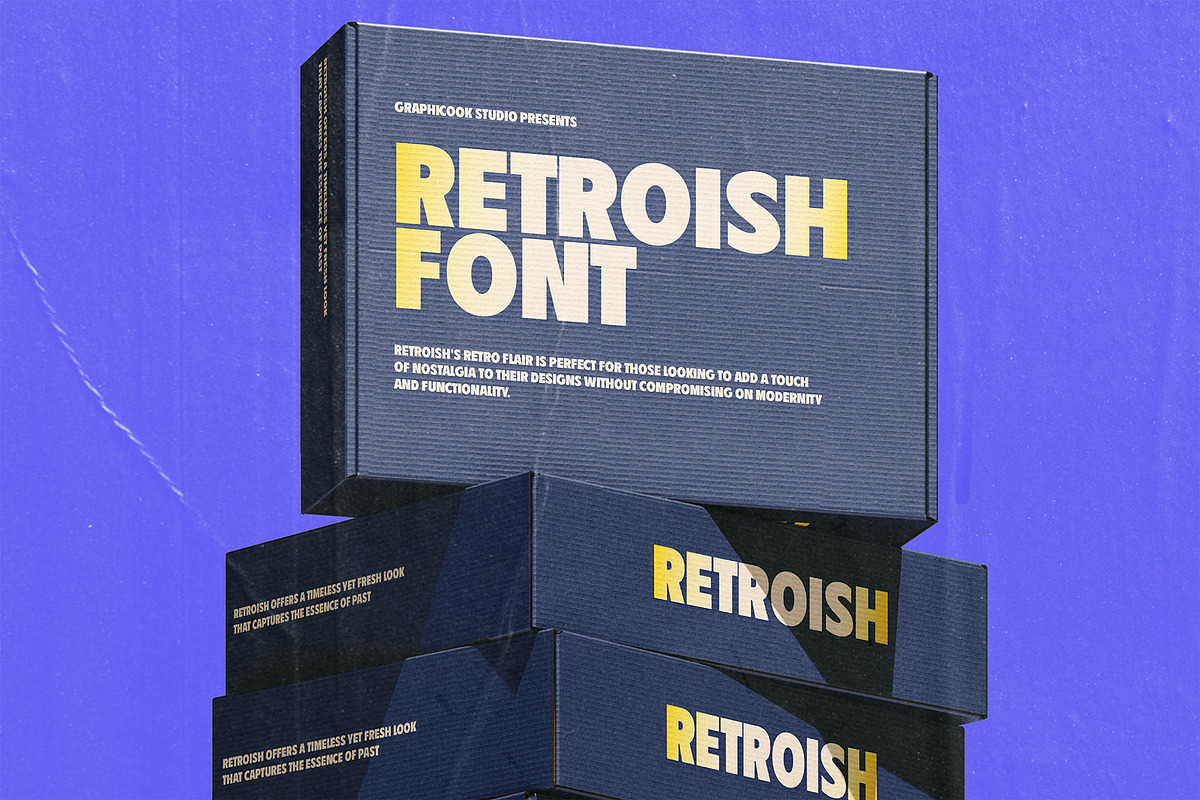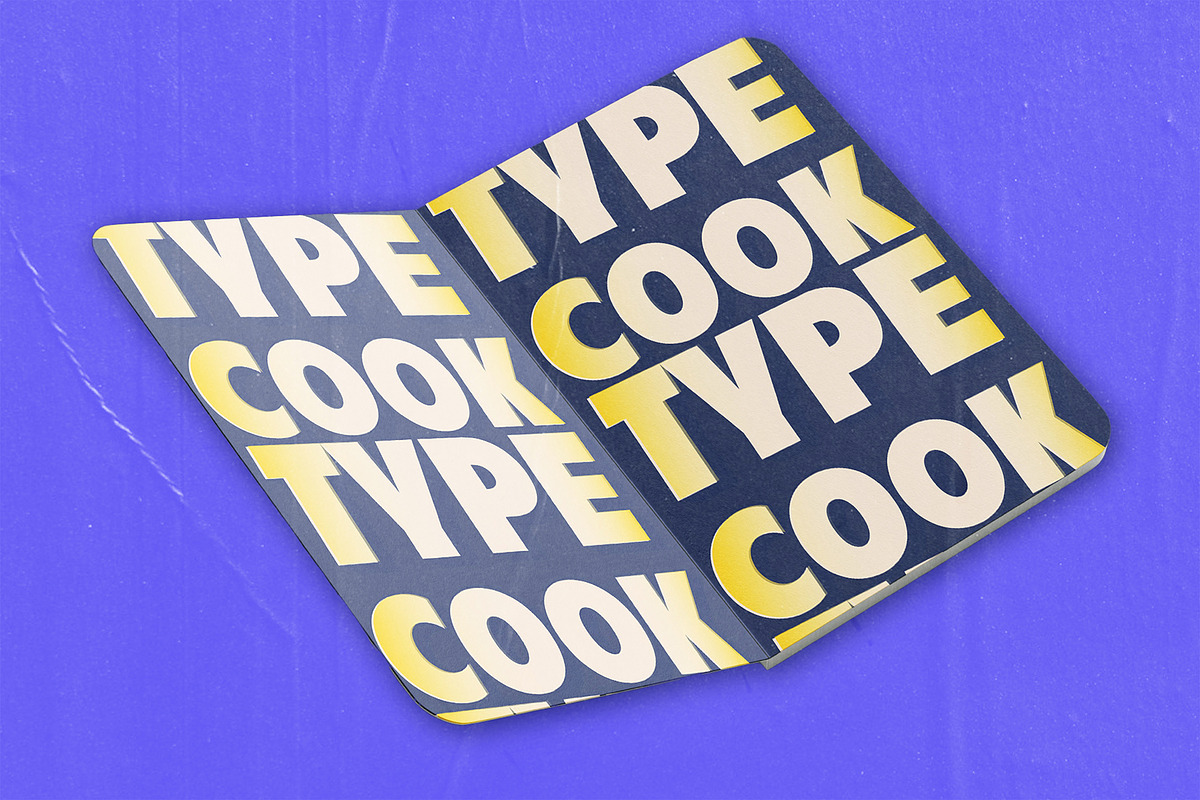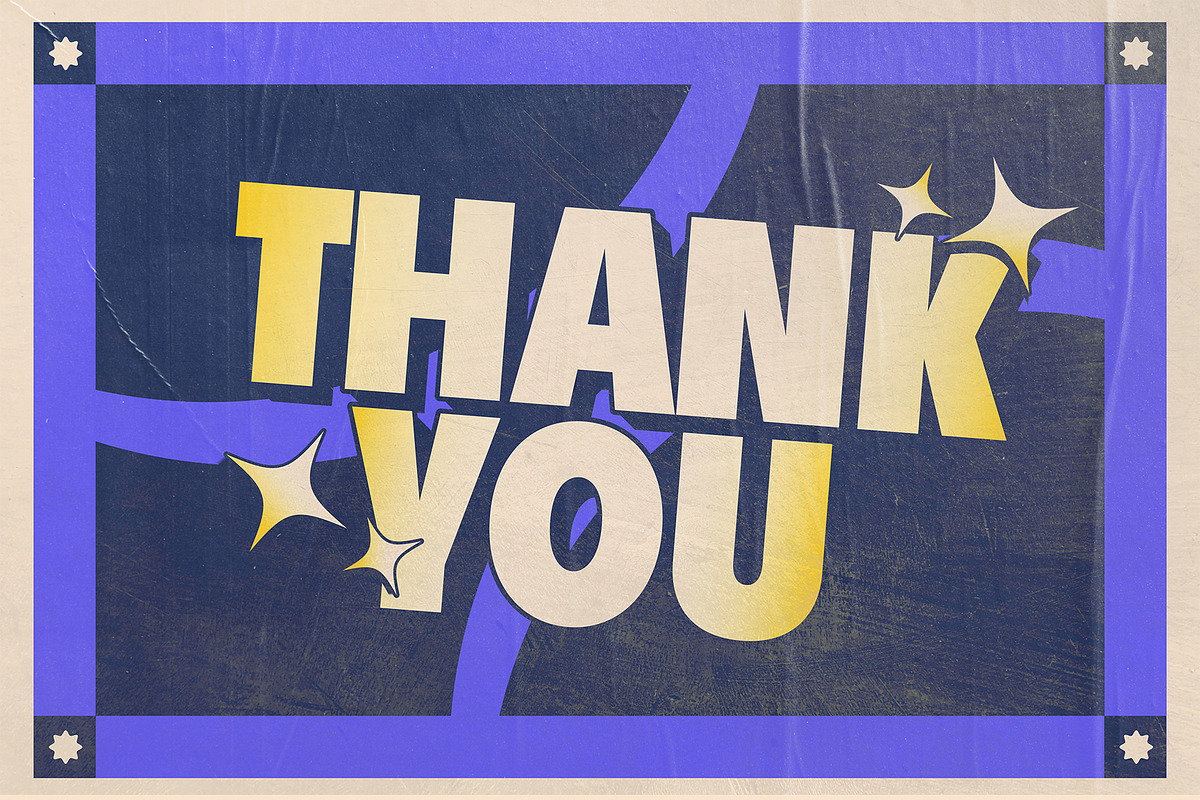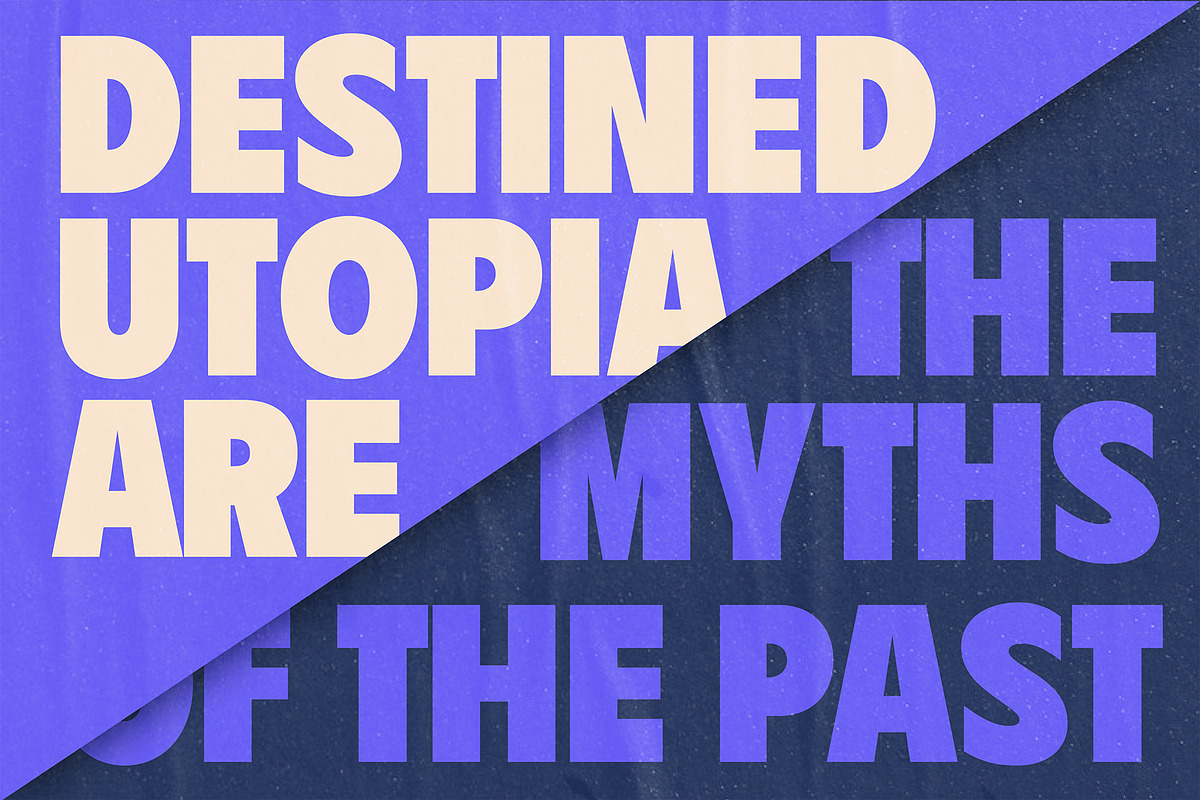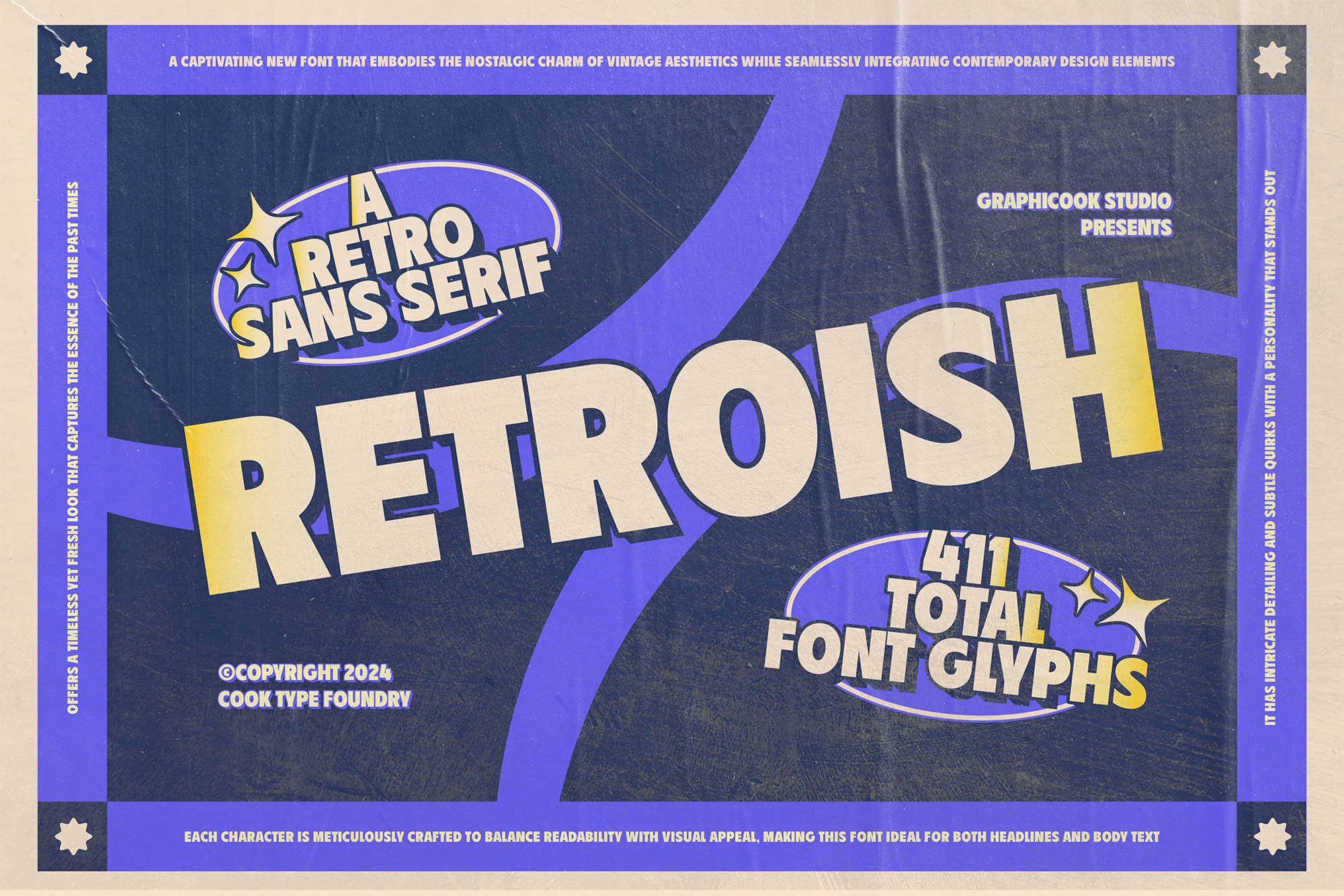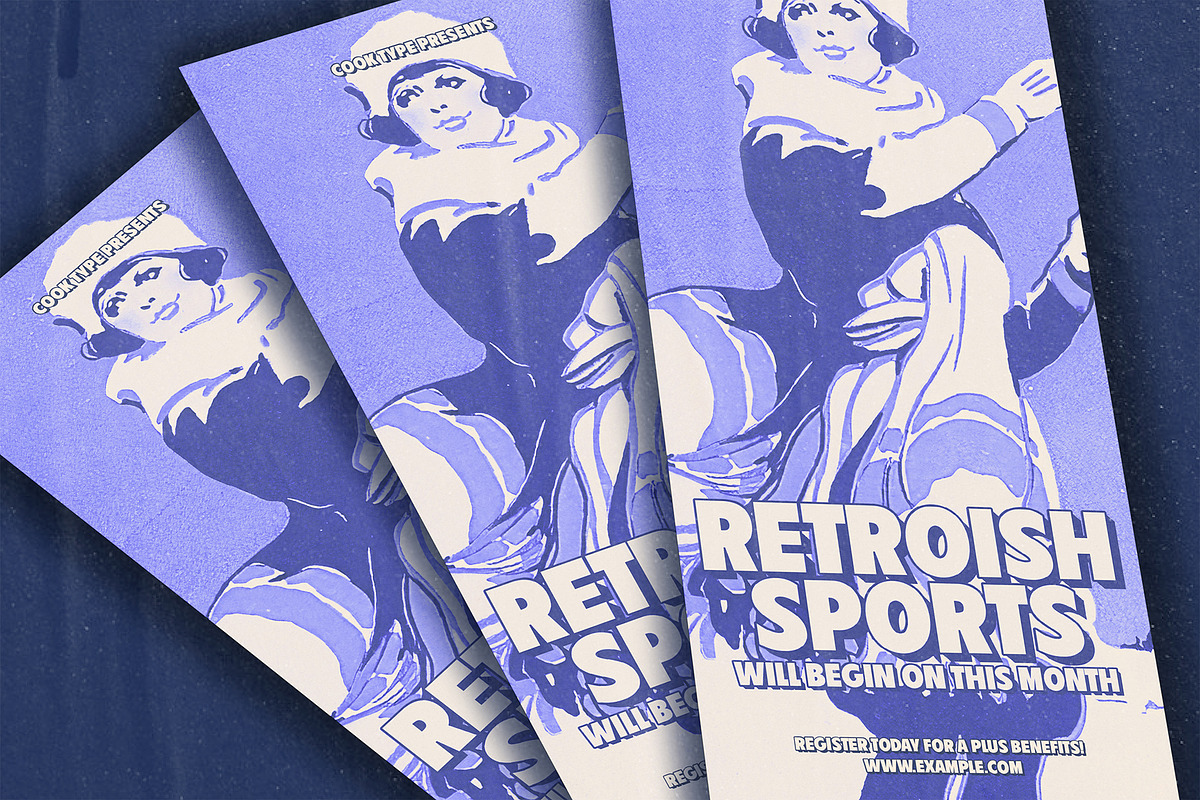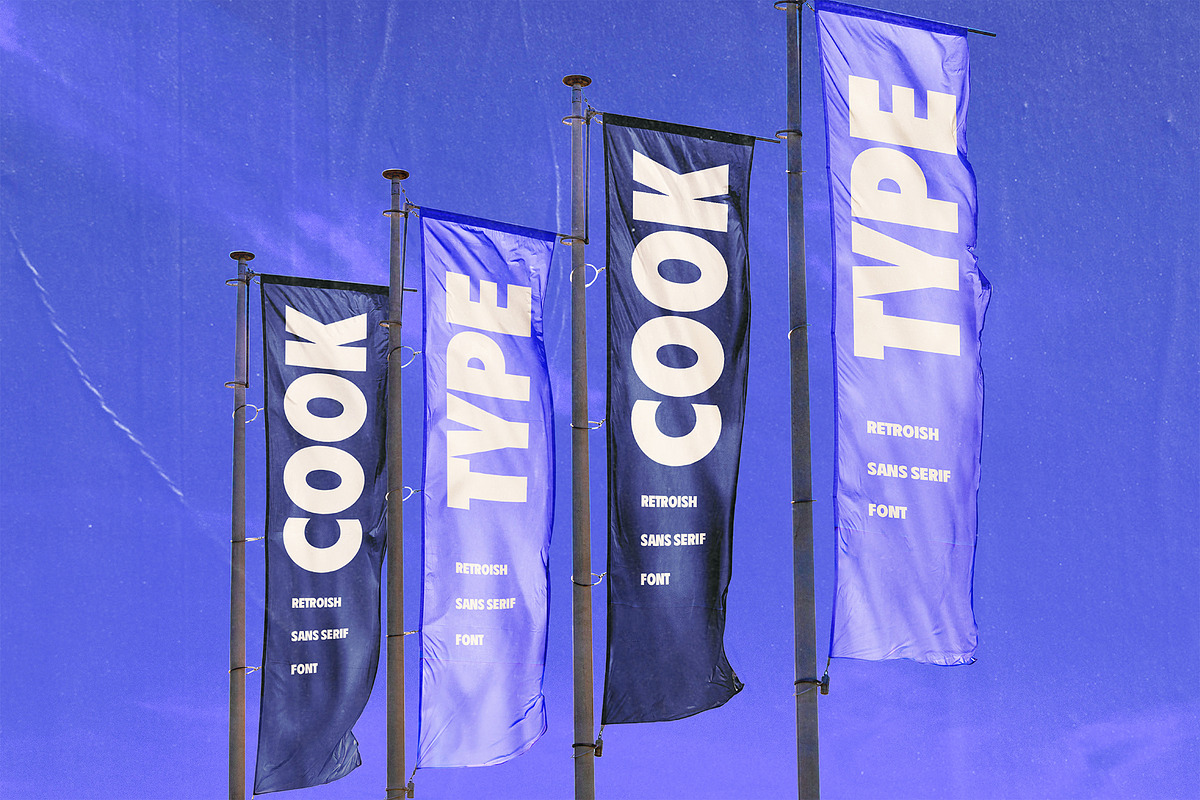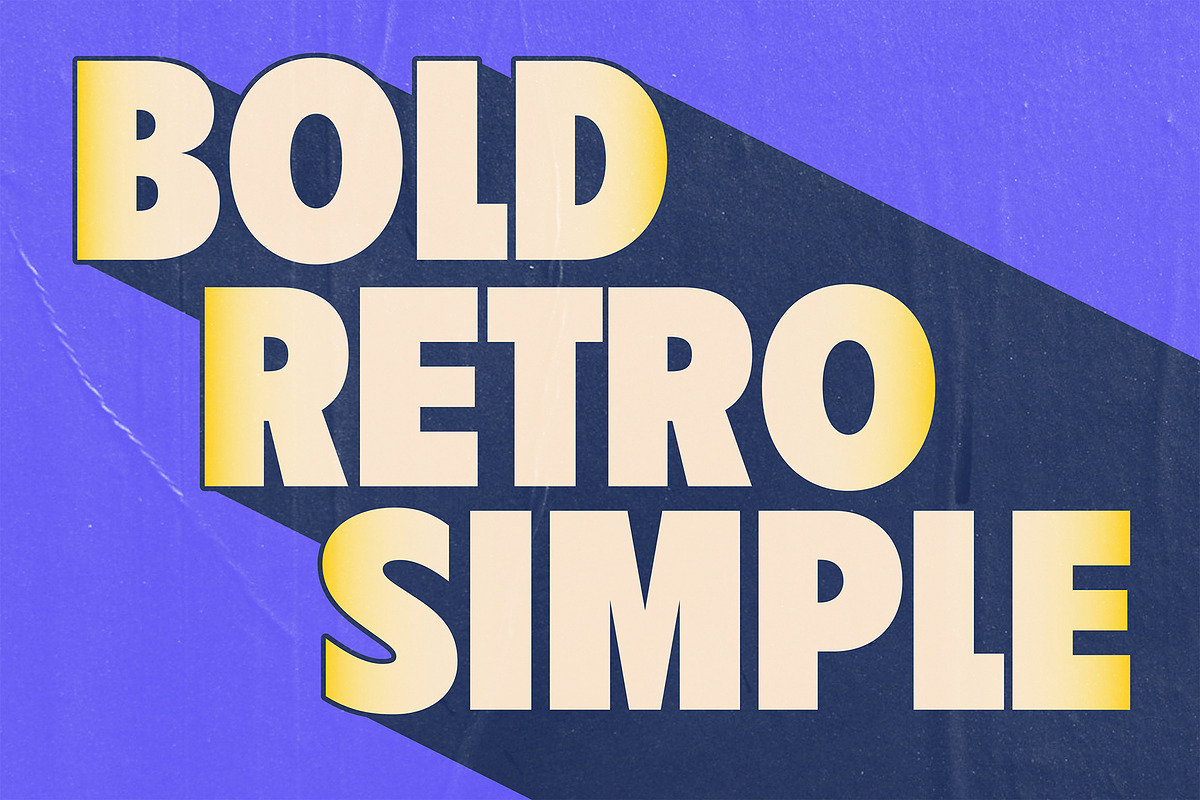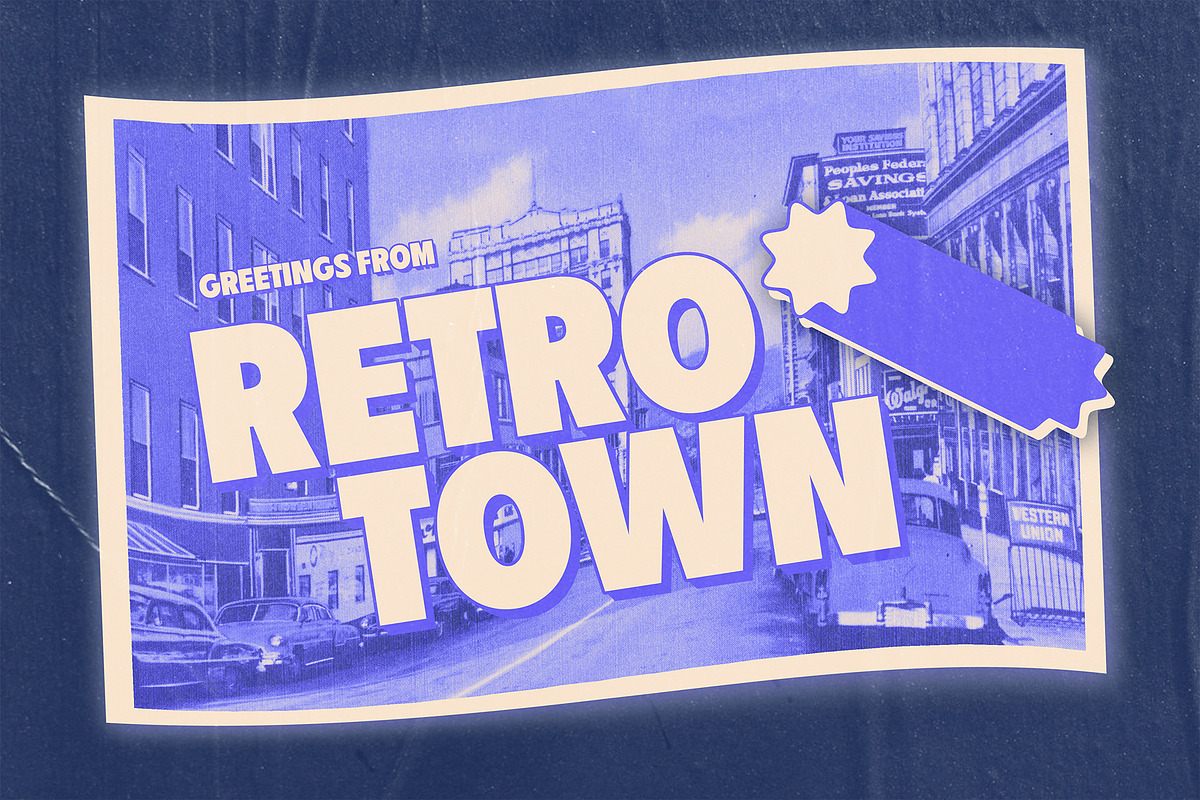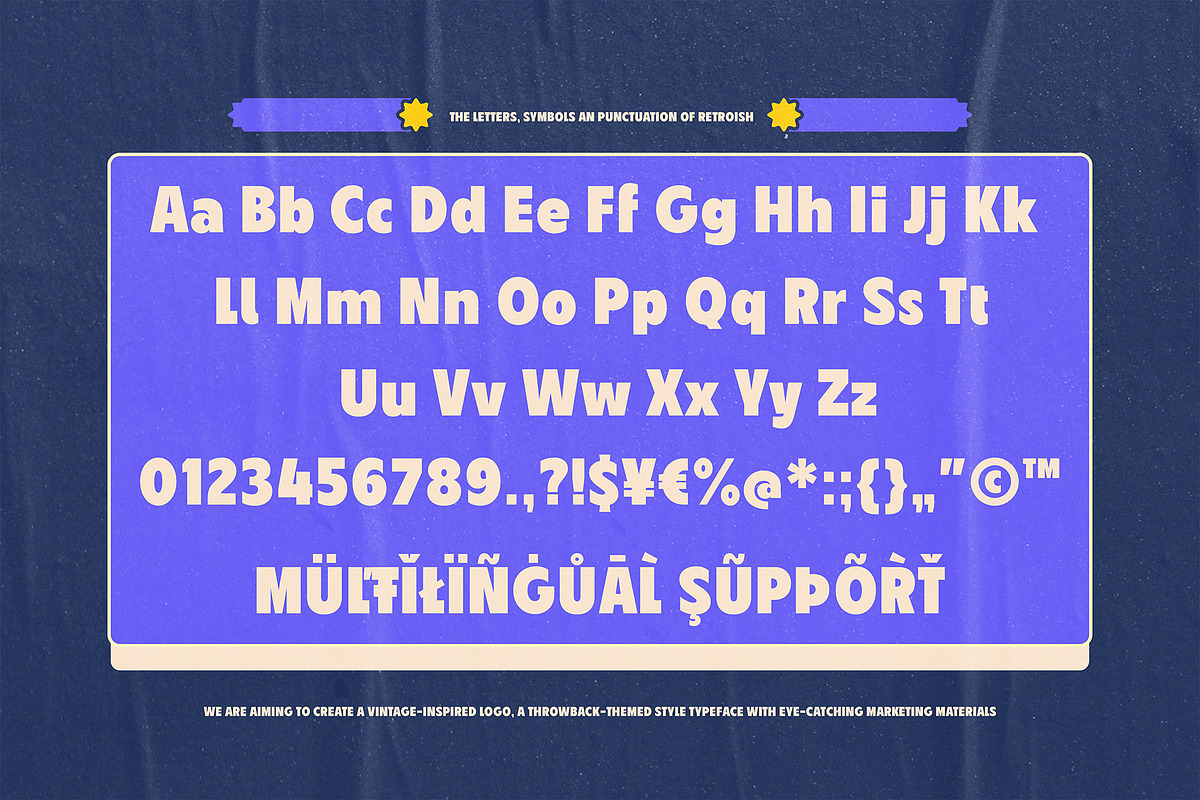
Retroish Display Typeface
Retroish is a retro-inspired font that beautifully blends modern style and vintage style. Perfect for logotypes, headlines, websites, magazines, and packaging.
Retroish is perfect for headlines, logotypes, magazines, packaging, quotes, movies, games, cover albums, book covers, and flyers, it's a perfect solution for creating eye-catching designs that stand out in any context.